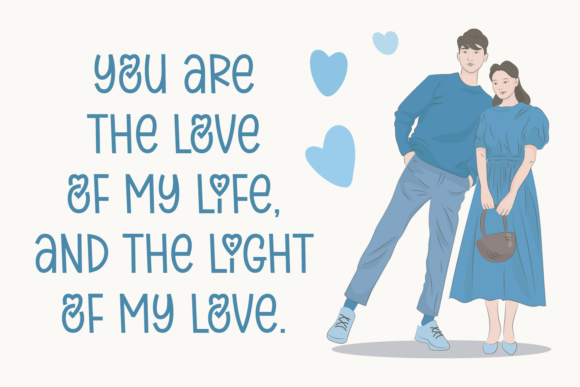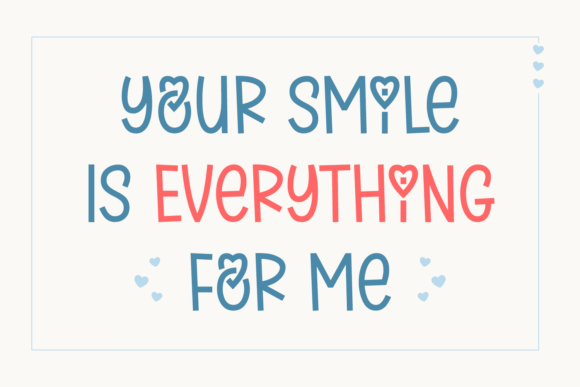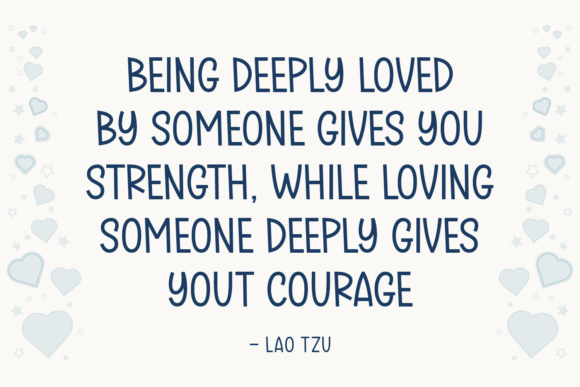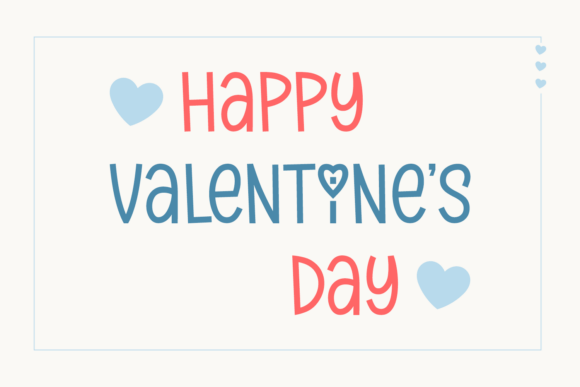
Goodbye Valentine Font: A Romantic and Playful Addition to Your Design Projects
Are you looking for a font that captures the essence of love and romance? Look no further than the Goodbye Valentine Font! This friendly display font is designed to bring a touch of whimsy and playfulness to your design projects, making it perfect for Valentine’s Day, Mother’s Day, and other celebrations of love and appreciation.
A Font that’s Full of Love
Goodbye Valentine Font is a romantic and playful font that’s been carefully crafted to channel the essence of love. With its lively and upbeat ambiance, this font is sure to engage children and adults alike. Whether you’re designing a greeting card, a craft project, or a brand identity, this font is sure to add a touch of warmth and personality to your work.
A Collection of Fonts to Suit Every Need
The Goodbye Valentine Font collection is a treasure trove of fonts that cater to a wide range of design needs. From adorable baby and kids fonts to elegant and sophisticated fonts, there’s something for everyone. You can choose from:
- Couple Fonts: Perfect for designing romantic materials, such as wedding invitations, anniversary cards, and love letters.
- Baby and Kids Fonts: Adorable fonts that are sure to delight children and add a touch of playfulness to your designs.
- Craft Fonts: Intricate and detailed fonts that are perfect for crafting and DIY projects.
- Elegant Fonts: Sophisticated and refined fonts that exude class and sophistication.
- Girly and Fun Fonts: Whimsical and playful fonts that add a touch of humor and lightheartedness to your designs.
- Greeting Card Fonts: Perfect for designing greeting cards, invitations, and other celebratory materials.
- Heart and Holiday Fonts: Fonts that are specifically designed for holidays and celebrations, such as Valentine’s Day and Mother’s Day.
- Logo and Logotype Fonts: Unique and creative fonts that can help you build a strong brand identity.
- Love Quote Fonts: Inspirational and uplifting fonts that are perfect for spreading positivity and love.
- Magazine Fonts: Fonts that are designed to help you create engaging and readable content.
- Quote Fonts: Fonts that are perfect for creating inspiring and thought-provoking quotes.
The Goodbye Valentine Font collection is a must-have for designers and crafters who want to add a touch of love and personality to their work. Whether you’re designing a brand identity, a greeting card, or a craft project, this font collection has everything you need to create something truly special.
Key Features of Goodbye Valentine Font
- Unique and Creative: The Goodbye Valentine Font collection is a one-of-a-kind collection that’s sure to make your designs stand out.
- High-Quality: The fonts in this collection are of the highest quality, ensuring that your designs look professional and polished.
- Versatile: The Goodbye Valentine Font collection is versatile and can be used for a wide range of design projects, from branding to crafting.